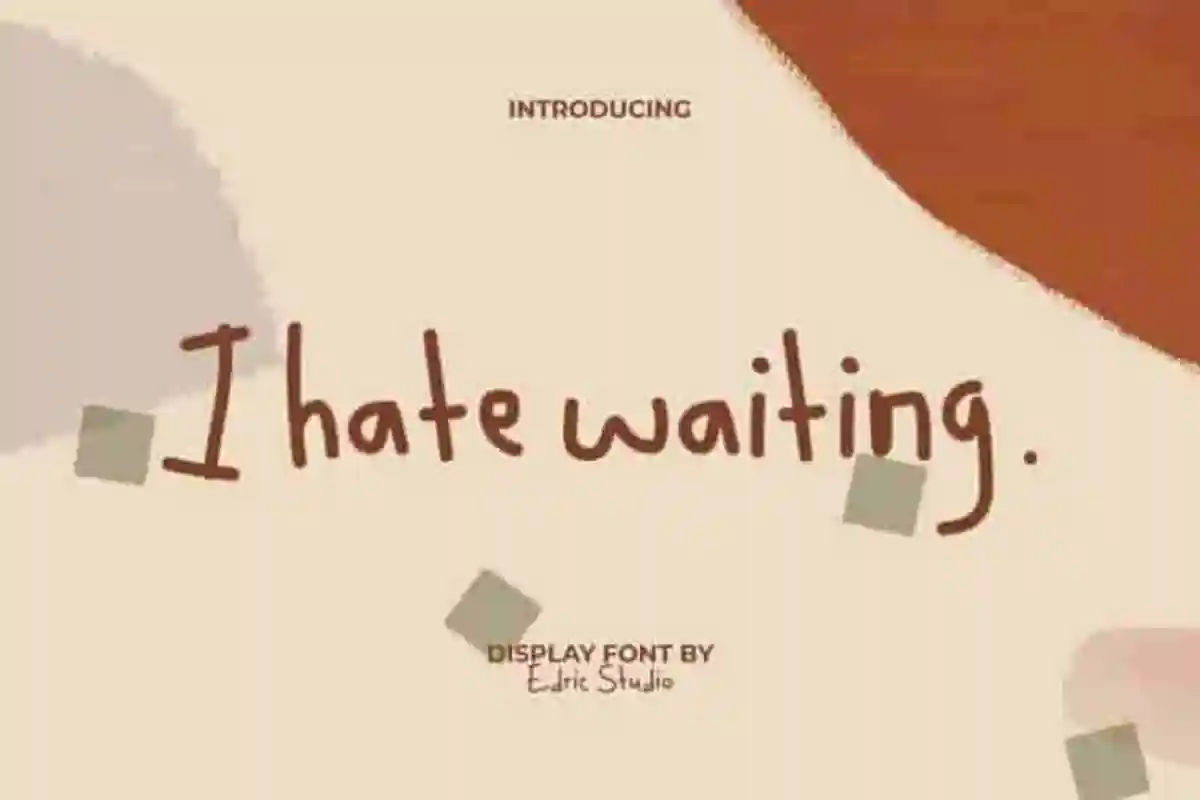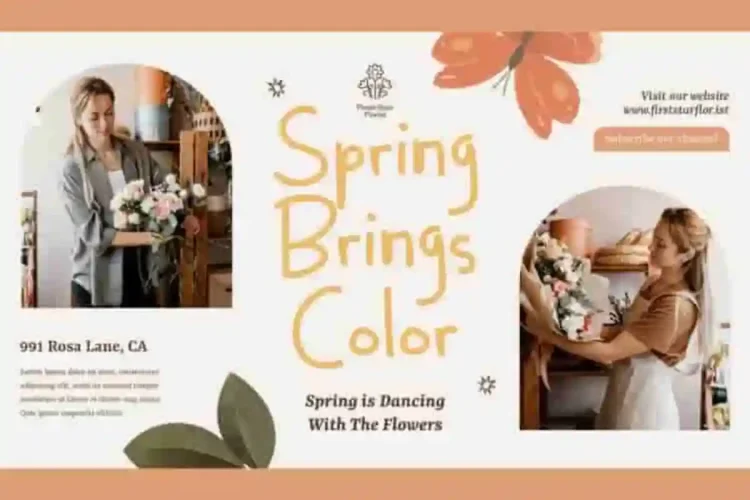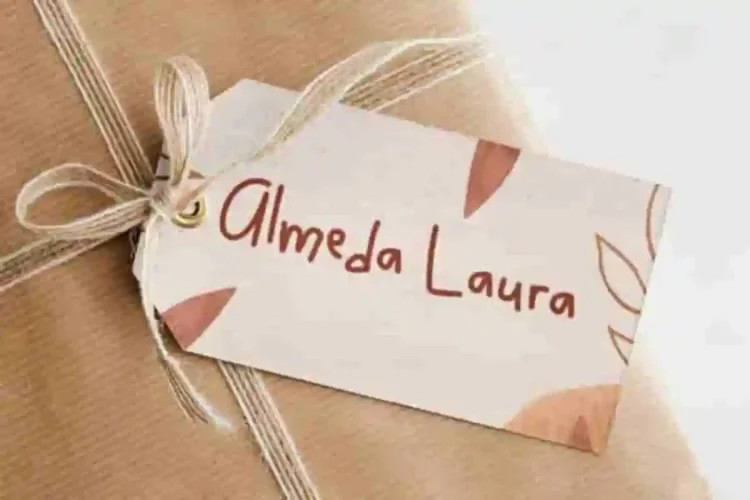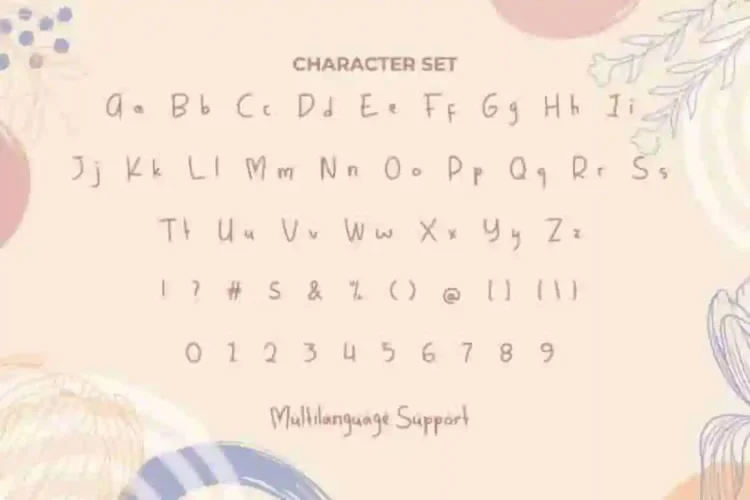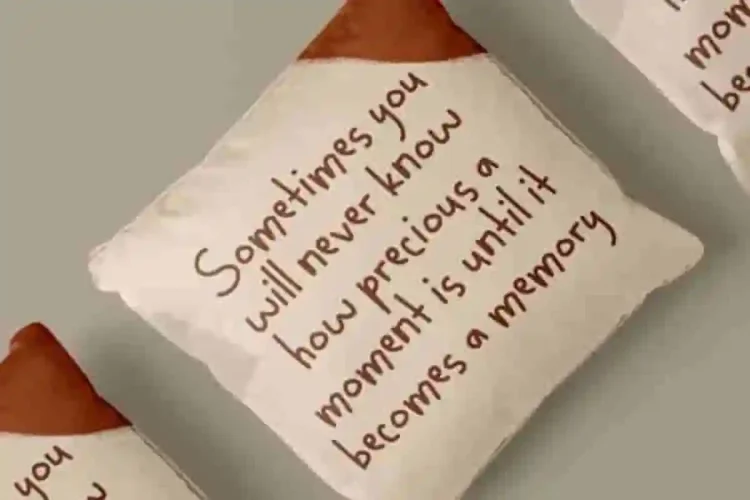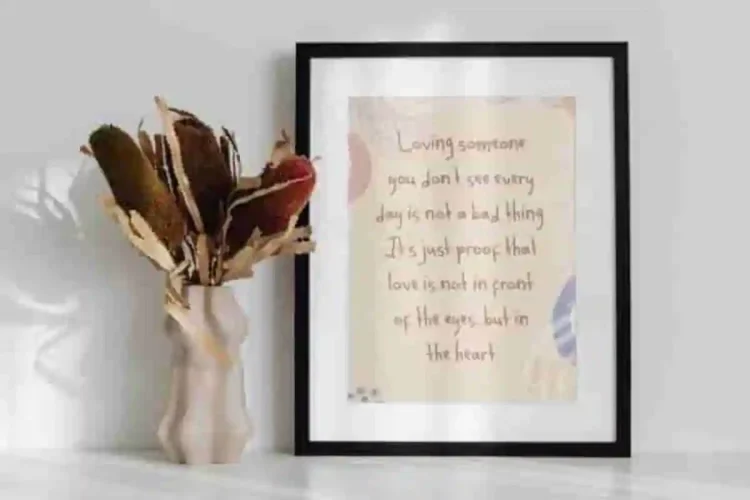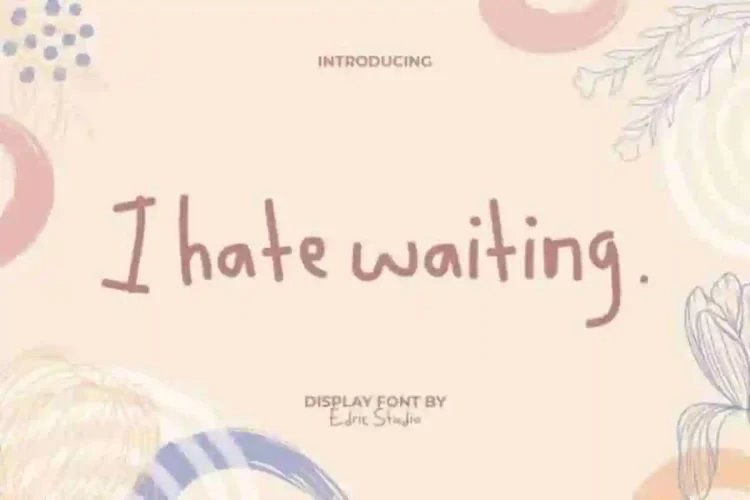
I Hate Waiting Display Handwritting Font
I Hate Waiting Display Font a delightful handwritten display font designed to mimic natural strokes. This typeface creates a warm and accessible aesthetic that resonates with authenticity. Whether you’re working on banners, blogs, brochures, flyers, greeting cards, or even brand logos, this font will add a personal and expressive touch.
I Hate Waiting Handwritting Font comes with full set of Uppercase and Lowercase Basic Characters, Number, a large range of Punctuation, and Symbol. With a modern look of organic curves that give a personal and expressive impression. The font is suitable for advertising, author, content creator, fashion, florist, home furniture, graphic designer, handicraft, writer, and others.